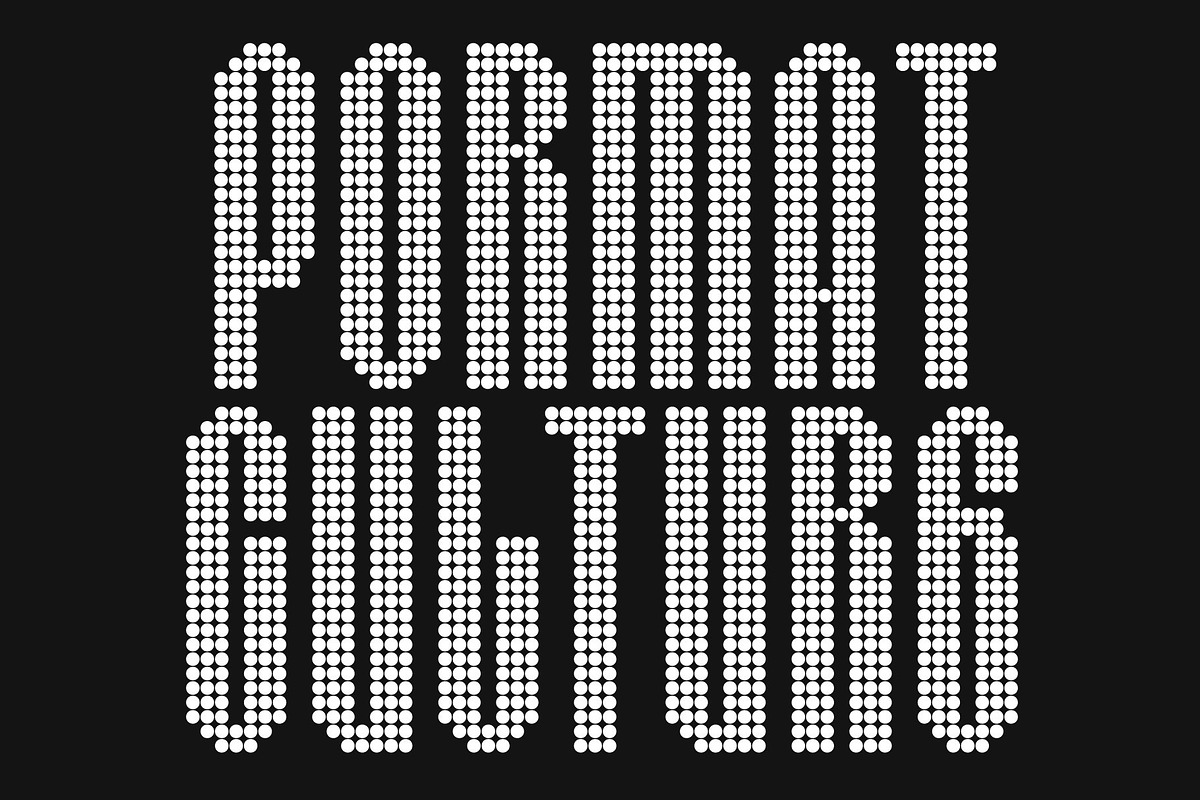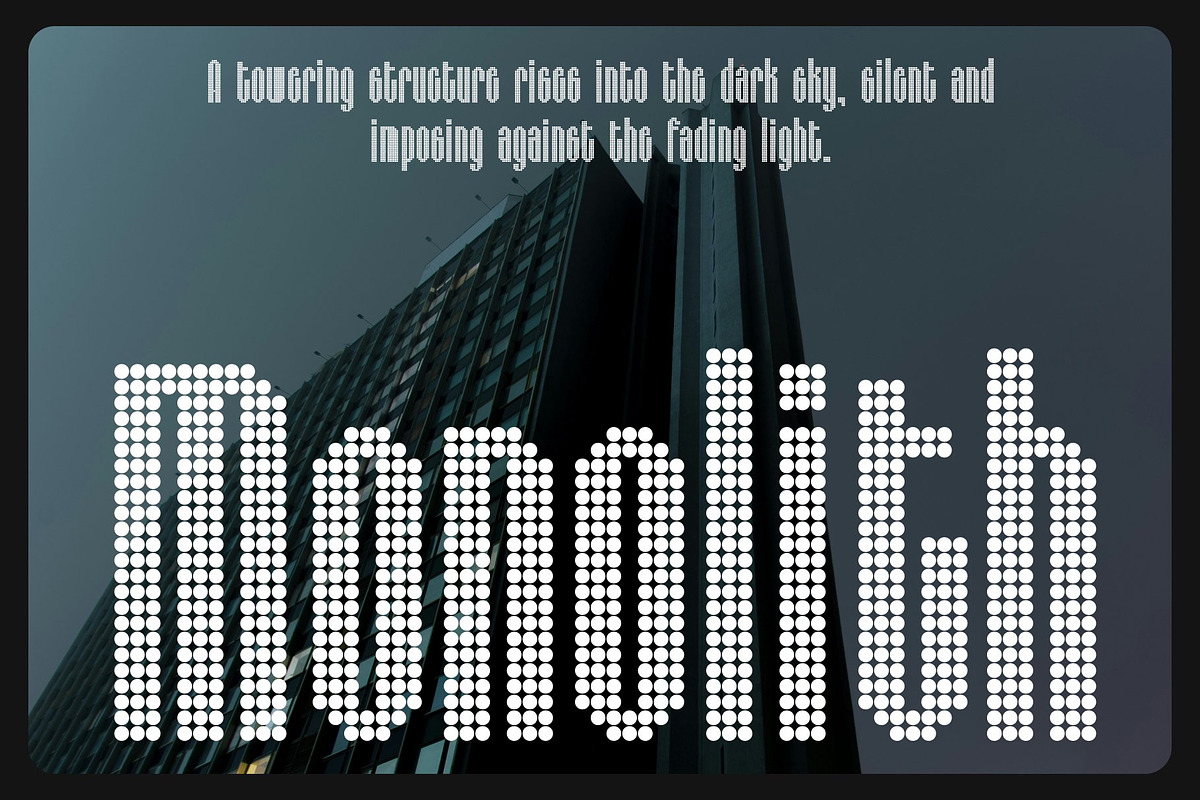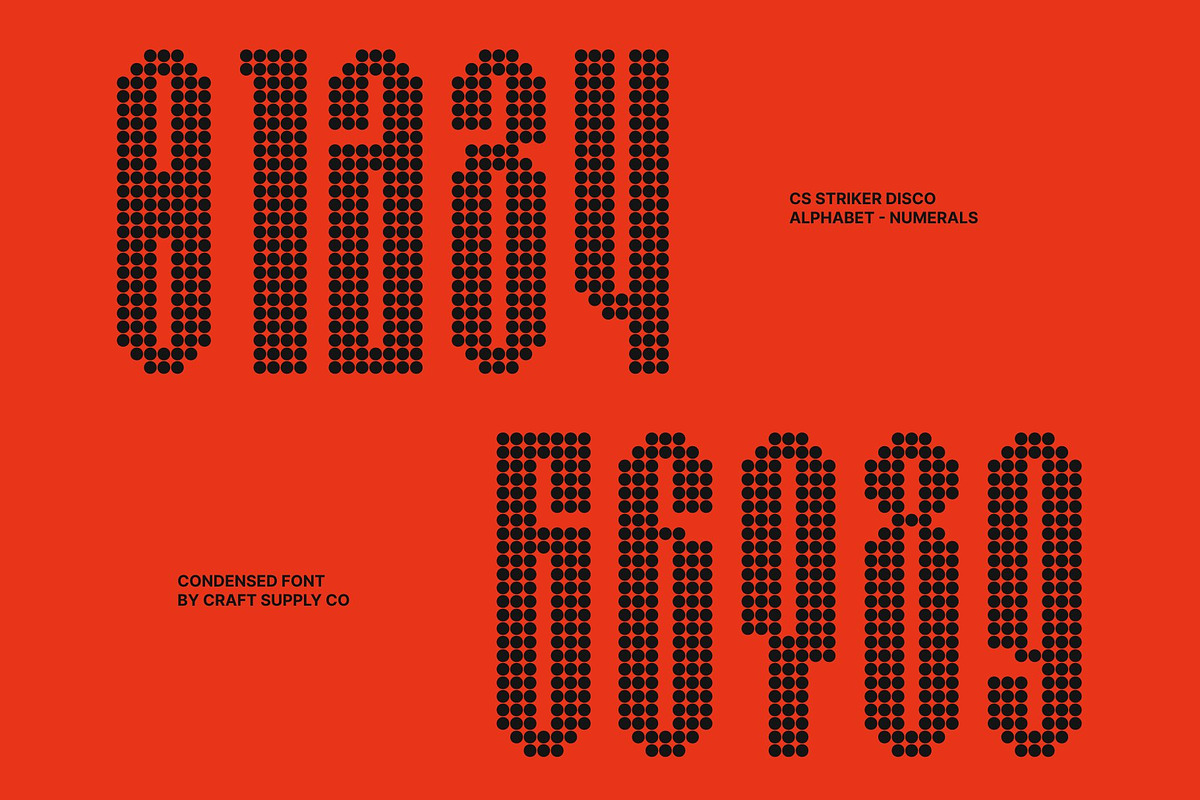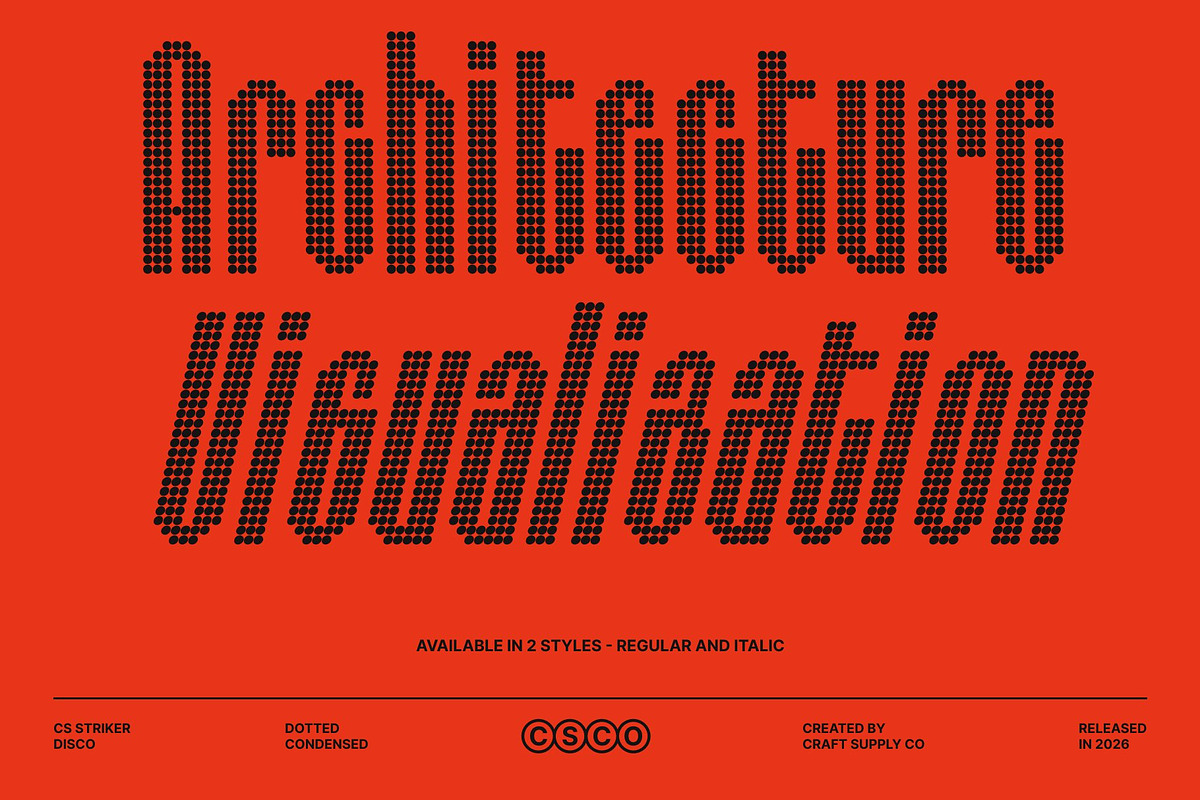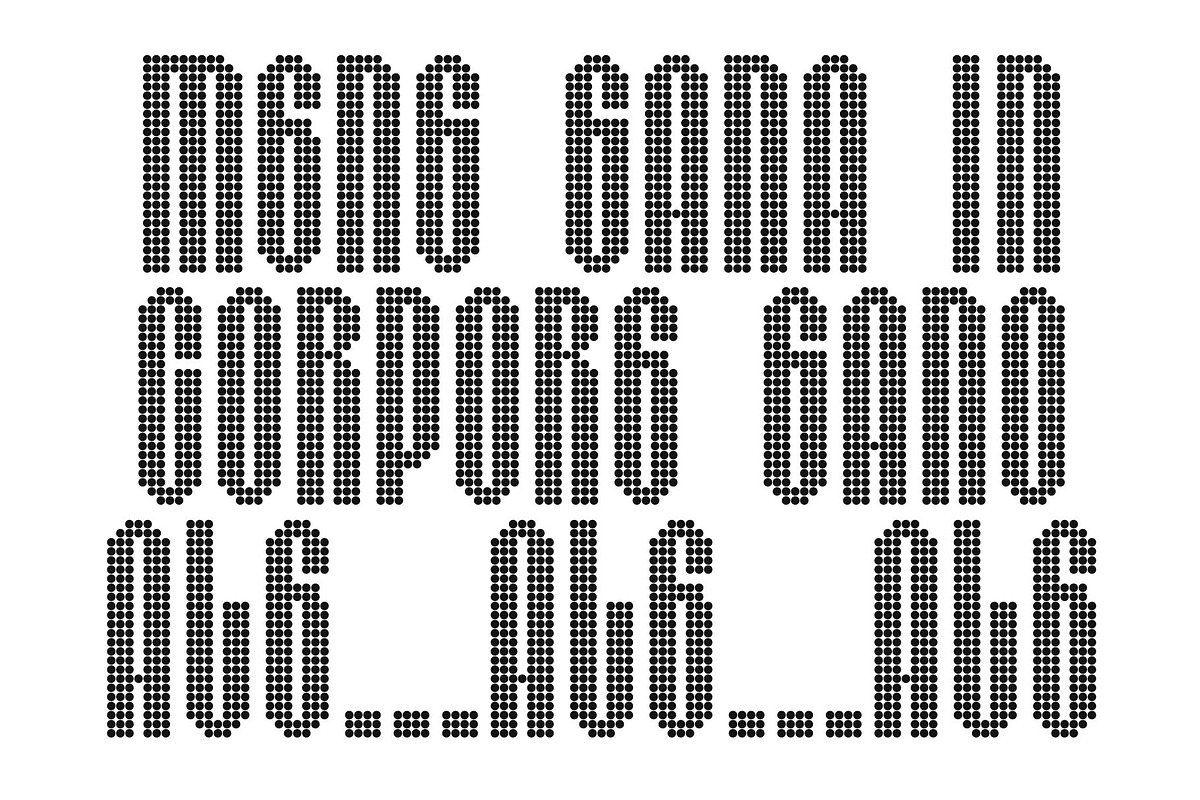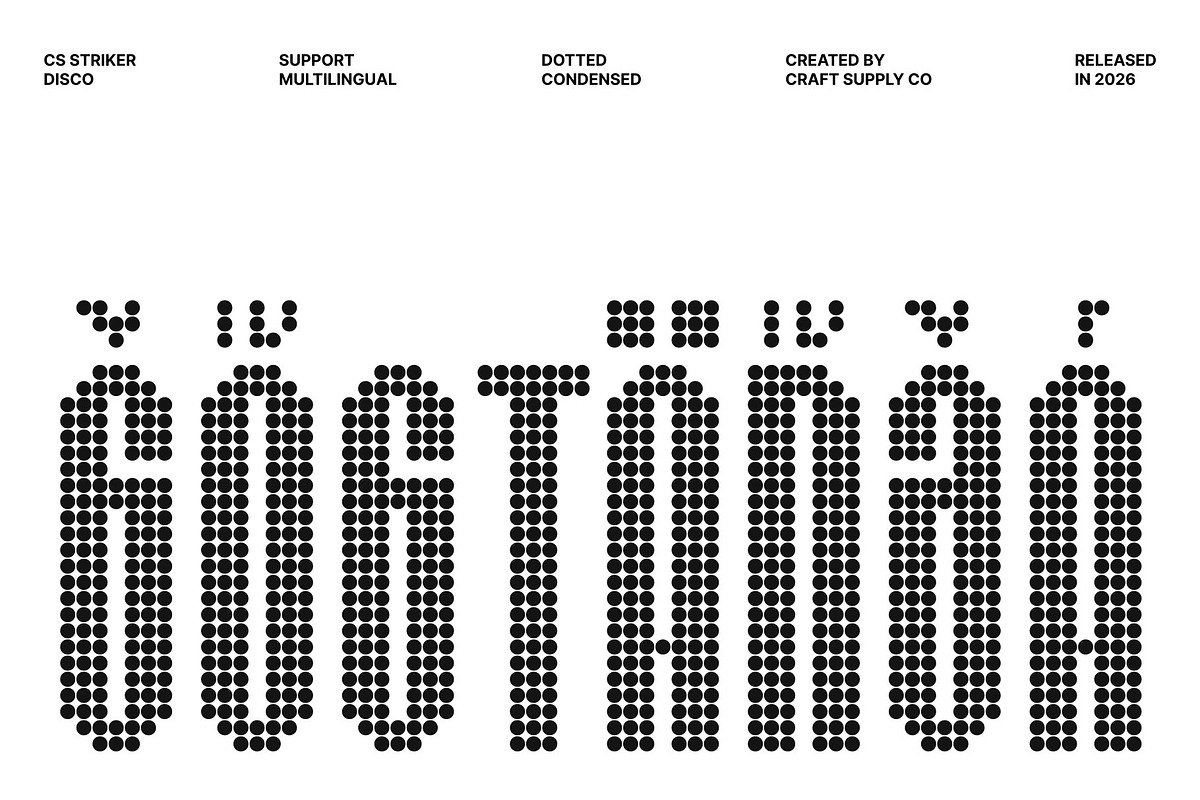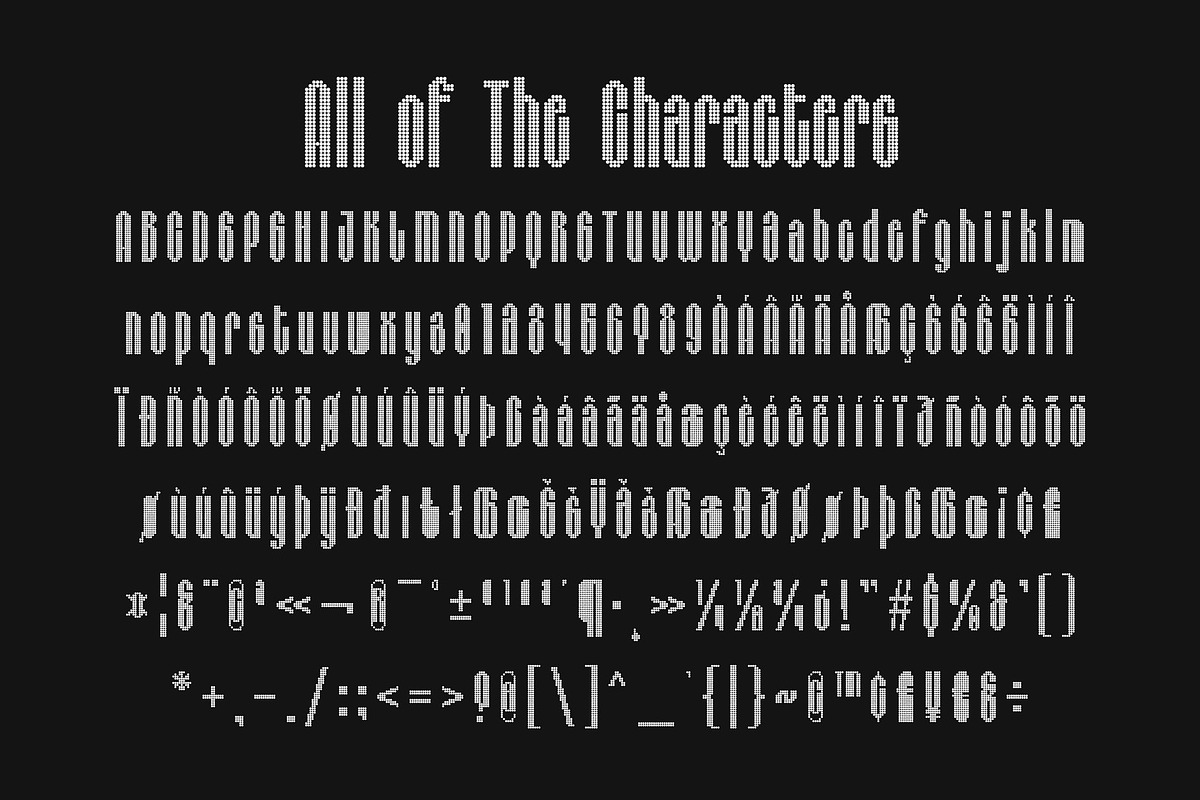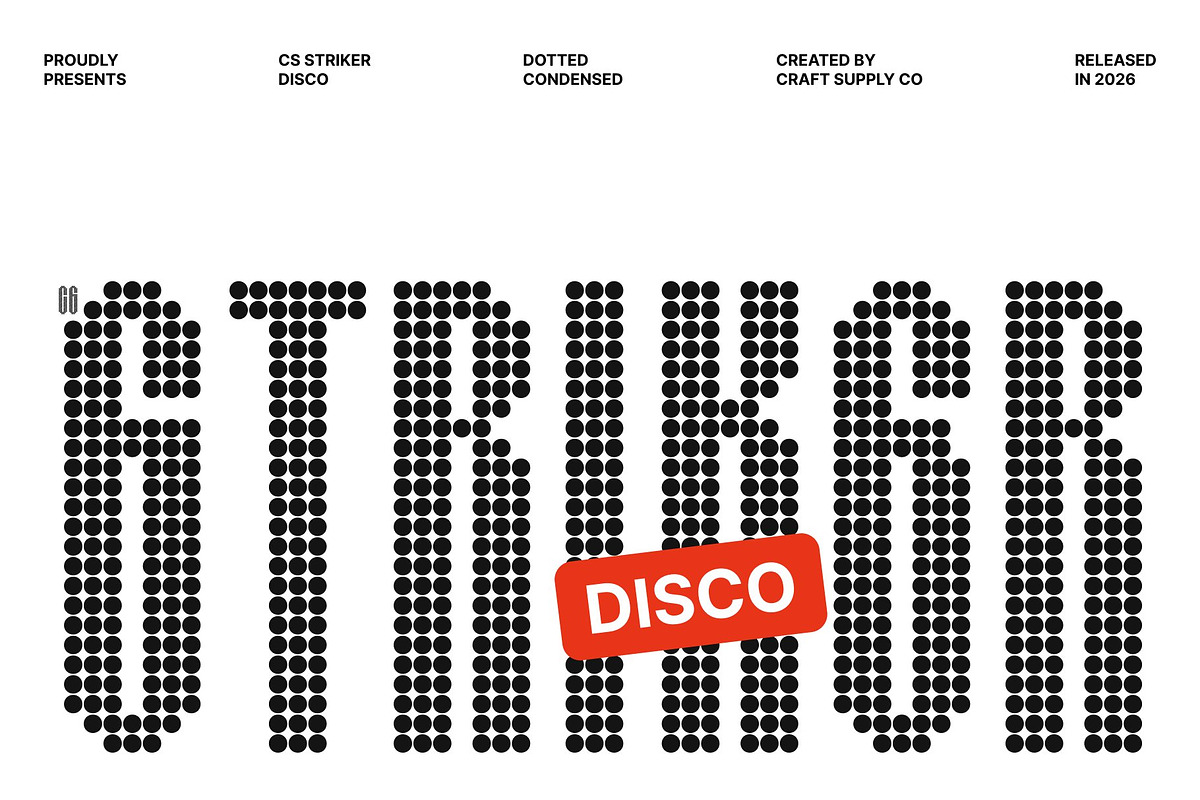
CS Striker Disco
CS Striker Disco – Condensed Power with Industrial Precision
Condensed Structure with Disco Energy This transforms a bold condensed sans serif into a vibrant dotted display font. Its narrow proportions maintain a strong, efficient structure, while the disco-style dot texture adds sparkle, rhythm, and celebratory energy turning industrial precision into something lively and eye-catching.
Industrial Strength Meets Playful Shine Built on clean geometric forms, the font keeps its modern industrial personality intact. The dotted surface softens the rigidity with a cheerful glow, creating a perfect balance between toughness and fun. The result is typography that feels confident, bold, and full of movement.
Compact, Bold, and Attention-Grabbing The condensed letterforms allow headlines to stand tall even in tight spaces. Combined with the festive dot styling, every word becomes dynamic and visually engaging perfect for designs that need strong impact without sacrificing personality.
Ideal for Posters, Branding, and Event Graphics This font shines in posters, music visuals, event promotions, branding, and social media content. Its mix of condensed power, industrial clarity, and disco sparkle makes it a standout choice for energetic and modern creative projects.
CS Striker Disco Regular
CS Striker Disco Italic